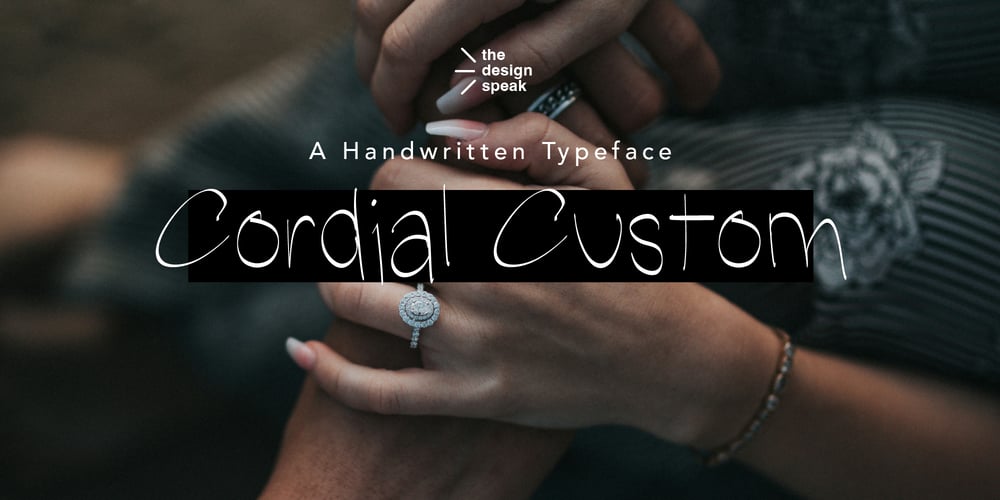
Cordial Custom Font Family was designed by Edward Marshall and published by The Design Speak. Cordial Custom contains 1 styles and family package options. Cordial Custom is a clean, plain, handwritten typeface designed to convey sincerity and heartfelt passion with every stroke. Its simple, non-cursive design balances clarity and warmth, featuring slightly irregular letterforms that mimic the authenticity of pen on paper. The subtle variation in line thickness adds depth and character, while rounded edges soften the overall look, making it approachable yet impactful. Cordial Custom is ideal for projects requiring a personal touch, from heartfelt branding to intimate stationery, evoking emotions with its genuine and passionate aesthetic.